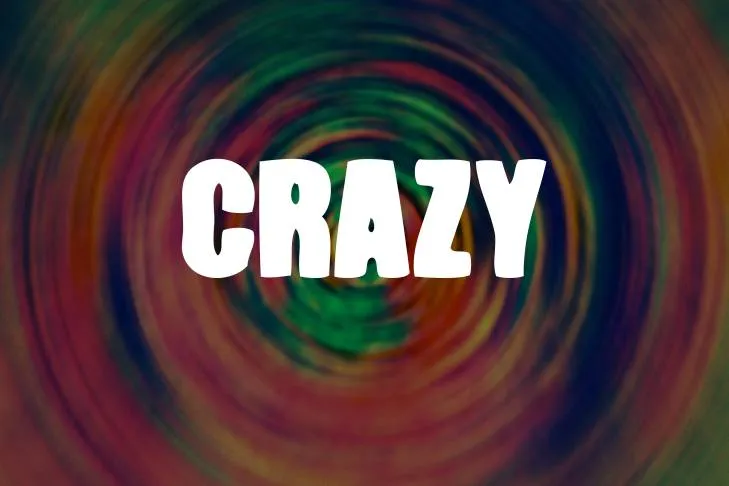
In today’s post, we will explore a new font named, Big Drama font. This font belongs to the Display font family. The letter shape of this exquisite font is geometric which provides a futuristic impact on your projects. Besides this, its text structure is simply outstanding as it contains primitive-style digits, fractions, and ligatures.
This font was fabulously devised by a Sweden-based designer, Max Miedinger in 1957. It was published during the 1990s by Woodcutter Font Studio. This font studio has released numerous fonts of various categories and almost all fonts are equally popular among designers.
Designs Tips for Working With Big Drama Font
Due to its dramatic yet impressive appearance, it serves a lot of purposes varying from print to digital-based initiatives.
Its robust structure is perfect for designing emblems, creating titles, headers, and other short text purposes. Additionally, this sensational font goes excellently for creating layouts for posters, brochures, or flyers. To ensure your design is unique and captivating, make sure to combine this font with the staccato font.
Likewise, it equips a striking appearance so, if you are intended to design an interface for a website containing gaming content or technology-oriented stuff then you must choose this font to make your creation stand out in the crowd.
Name | Big Drama Font |
Designer | Max Miedinger |
Style | Display |
Who is the designer of the Big Drama font?
This atypical font is fabulously devised by a Sweden-based designer, Max Miedinger in 1957. It was published during the 1990s by Woodcutter Font Studio.
What type of font the Big Drama is?
This font belongs to the Display font family which has unique features and functions.